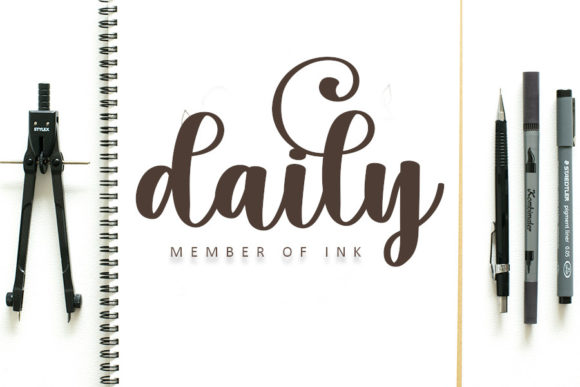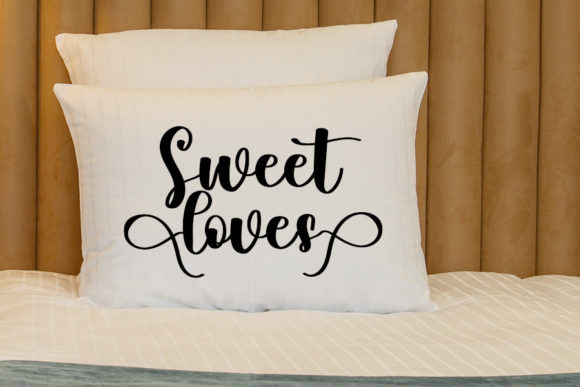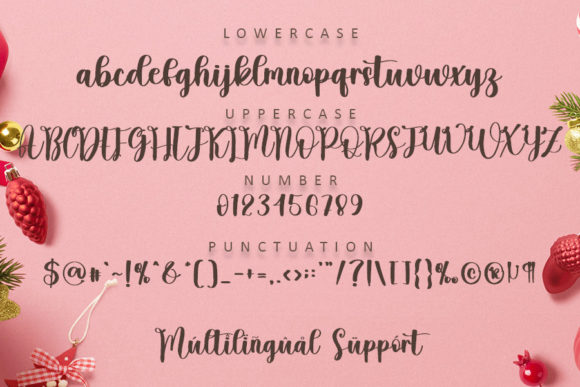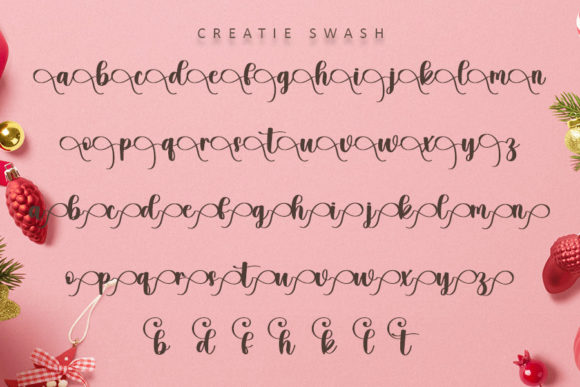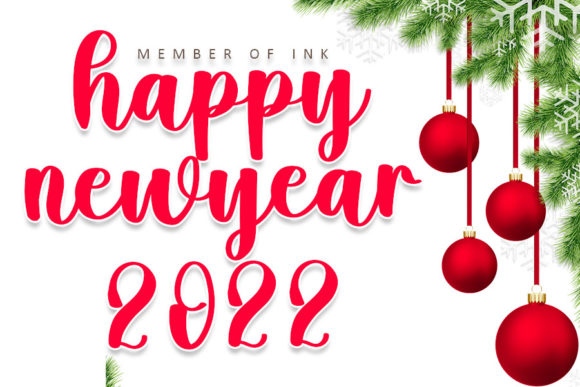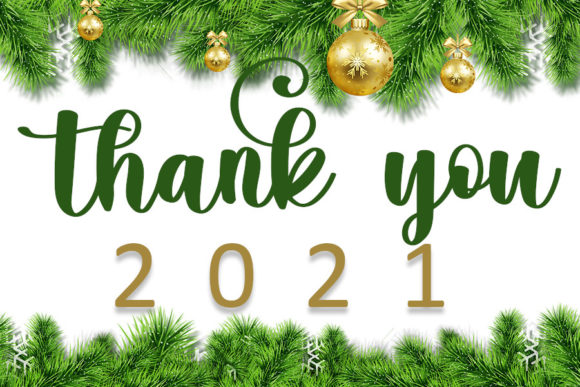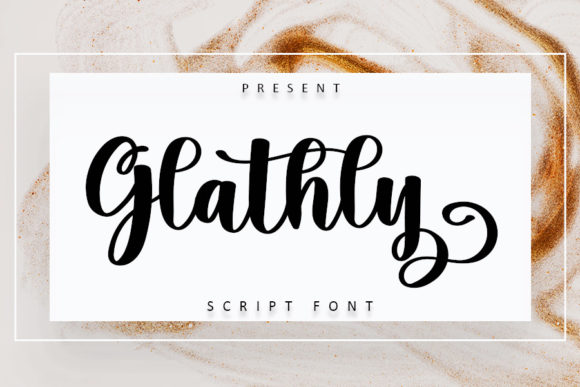
Introducing Glathly Font: Elevate Your Designs with Luxurious Flair
Are you tired of using the same old fonts in your design projects? Do you want to add a touch of luxury and sophistication to your creations? Look no further than Glathly Font, an enchanting script font that’s sure to take your designs to the next level. In this article, we’ll dive into the world of Glathly Font, exploring its features, benefits, and uses, and show you how it can add a spark of elegance to any design project.
What is Glathly Font?
Glathly Font is a beautifully crafted script font that’s designed to add a touch of luxury to any design project. With its elegant and flowing lines, Glathly Font is perfect for creating sophisticated and eye-catching designs that demand attention. Whether you’re a designer, crafter, or DIY enthusiast, Glathly Font is an excellent choice for anyone looking to elevate their designs and add a professional touch.
Key Features of Glathly Font
So, what makes Glathly Font so special? Here are some of its key features:
• PUA Encoding: Glathly Font is PUA (Private Use Area) encoded, which means you can access all of its amazing glyphs and ligatures with ease. This makes it easy to use and incorporate into your designs.
• Enchanting Script Style: Glathly Font features an enchanting script style that’s perfect for creating luxurious and sophisticated designs.
• Ligatures and Glyphs: With Glathly Font, you’ll get access to a range of ligatures and glyphs that will take your designs to the next level.
Benefits of Using Glathly Font
So, why should you choose Glathly Font for your design projects? Here are some of the benefits of using this amazing font:
• Adds Luxury and Sophistication: Glathly Font adds a touch of luxury and sophistication to any design project, making it perfect for high-end brands and designers.
• Easy to Use: With its PUA encoding, Glathly Font is easy to use and incorporate into your designs, even for those with limited design experience.
• Versatile: Glathly Font is versatile and can be used in a range of design projects, from branding and advertising to crafting and DIY projects.
Uses of Glathly Font
So, what can you use Glathly Font for? The possibilities are endless! Here are some ideas to get you started:
• Branding and Advertising: Use Glathly Font to create luxurious and sophisticated branding and advertising materials, such as logos, brochures, and business cards.
• Crafting and DIY Projects: Add a touch of elegance to your crafting and DIY projects, such as handmade cards, invitations, and scrapbooking.
• Graphic Design: Use Glathly Font in your graphic design projects, such as posters, flyers, and social media graphics.
Tips for Using Glathly Font
Here are some tips for using Glathly Font in your design projects:
• Experiment with Different Sizes and Colors: Experiment with different sizes and colors to find the perfect combination for your design.
• Pair with Other Fonts: Pair Glathly Font with other fonts to create a unique and eye-catching design.
• Use Ligatures and Glyphs: Make the most of Glathly Font’s ligatures and glyphs to add an extra touch of elegance to your design.